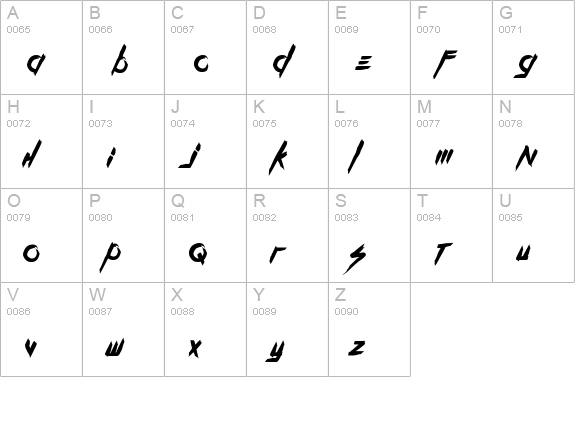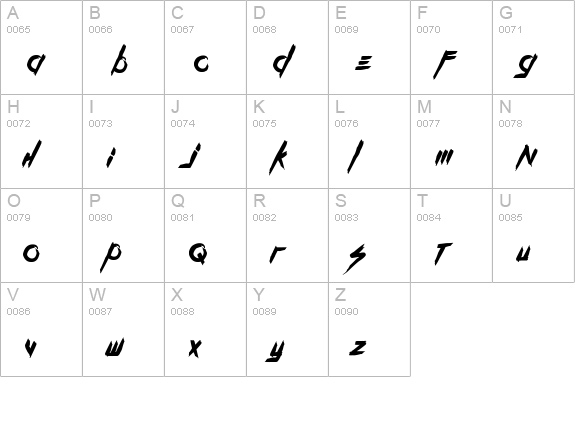
Kill The Noise Font Details
Kill The Noise font is a bold and edgy typeface that commands attention with its strong presence and sharp angles. Each letter exudes a sense of power and determination, making it perfect for headlines, posters, and branding projects that require a bold statement. The unique design of Kill The Noise font sets it apart from traditional fonts, adding a modern and dynamic touch to any design. What's even better is that Kill The Noise font is available for free download at FontsMarket.com. This means you can easily access this striking typeface and use it in your projects without any cost. Don't miss out on the opportunity to add a touch of boldness and creativity to your designs with Kill The Noise font, now available for free at FontsMarket.com.